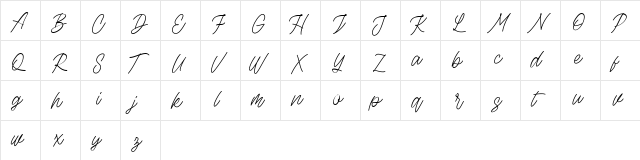
Rottordam Thin FREE Regular
Design Context for Rottordam Thin FREE Typeface
Rottordam Thin FREE is a composed and adaptable typeface that performs quietly and consistently across a wide range of design contexts. The delicate stroke weight brings airiness and refinement to layouts.